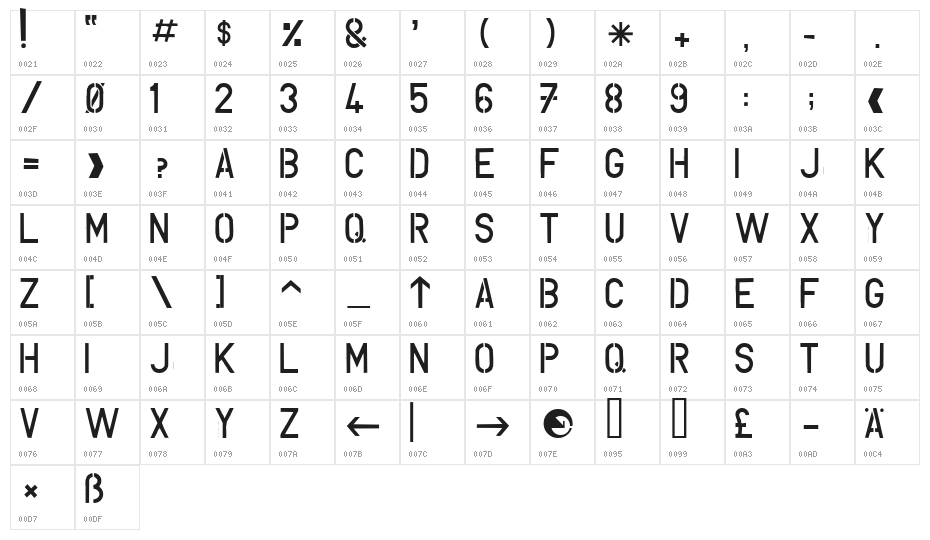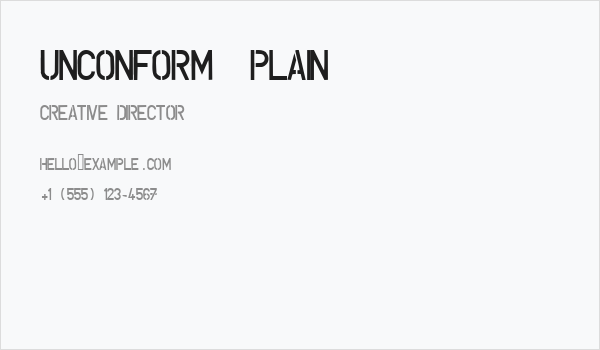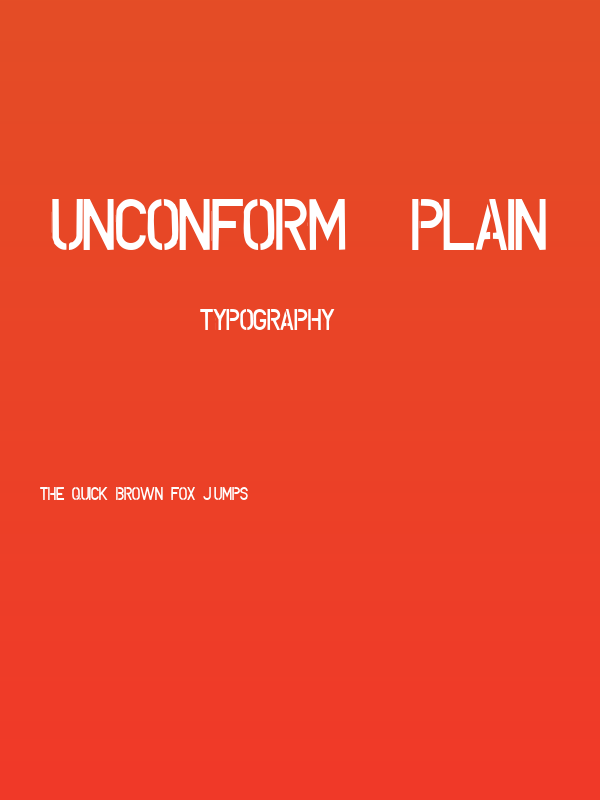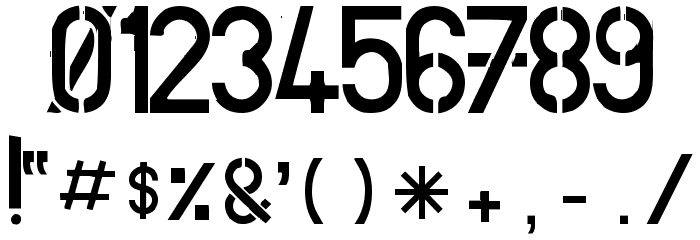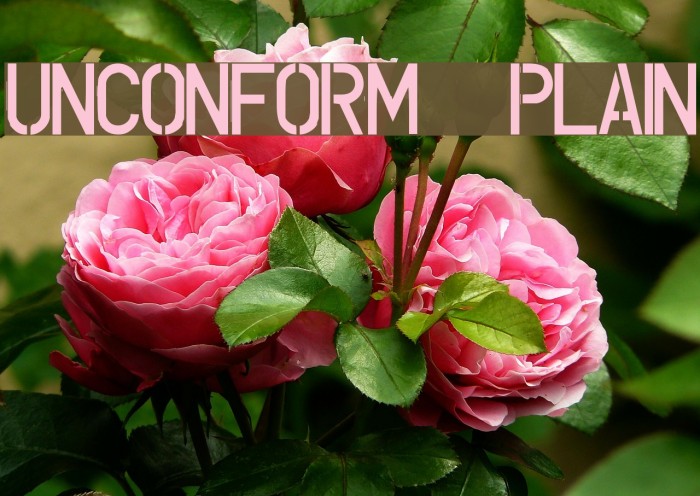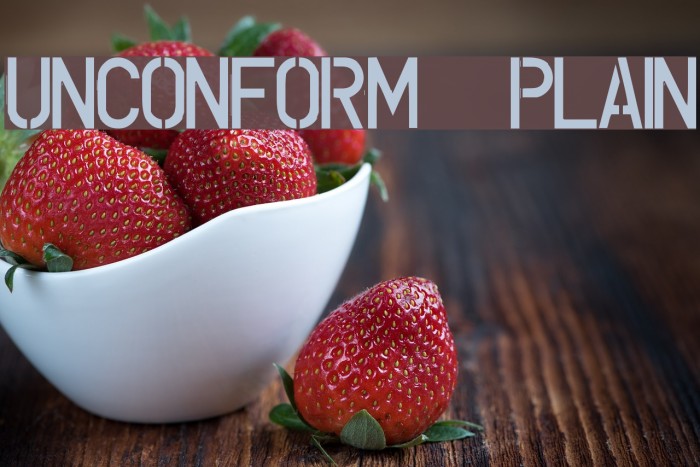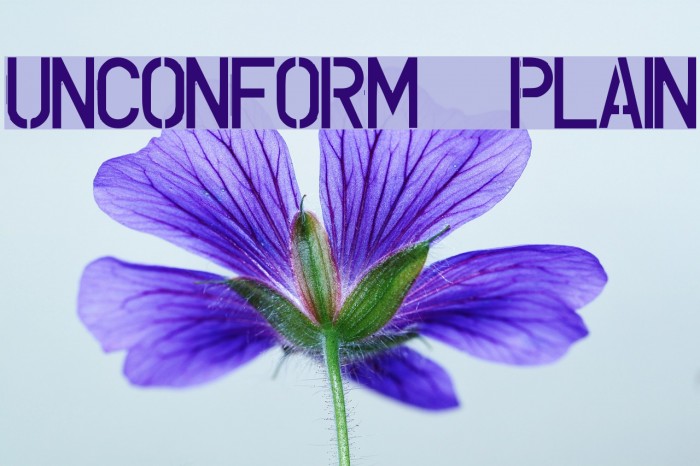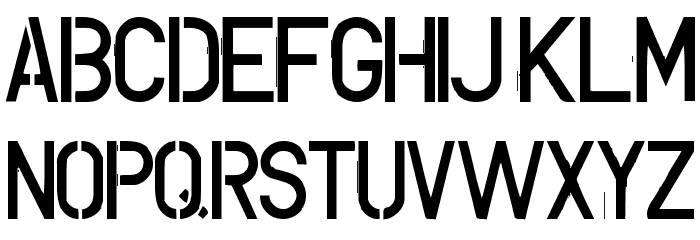
UNCONFORM plain Font
UNCONFORM plain Description
This font exhibits a bold and modern aesthetic with a geometric structure. The uppercase letters are characterized by sharp angles and clean lines, creating a strong visual impact. The lowercase letters maintain a similar geometric style, ensuring consistency across the typeface. The numerals are distinct and easily readable, following the same bold and structured design. Special characters are well-integrated, maintaining the overall style. This font's design is highly suitable for projects that require a contemporary and assertive look.
| Proposed Projects | Ideal for branding, headlines, posters, and digital media where a strong, modern presence is desired. |